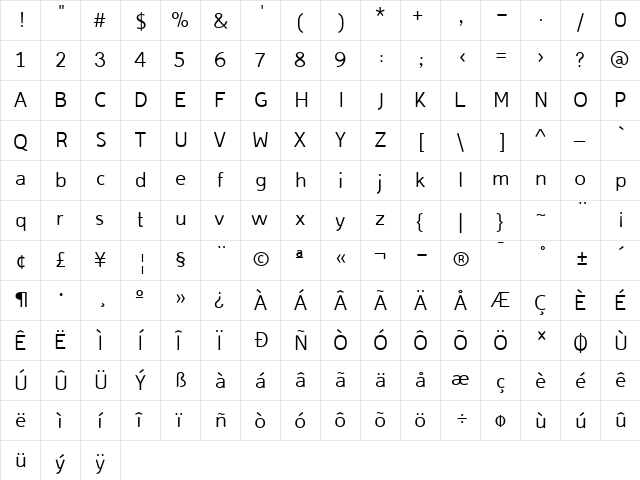
Domestos98b Thin
Design Context for Domestos98b Typeface
Domestos98b takes a measured approach to typography — its balanced proportions and neutral character make it a reliable workhorse for both digital and print work. The delicate stroke weight brings airiness and refinement to layouts.